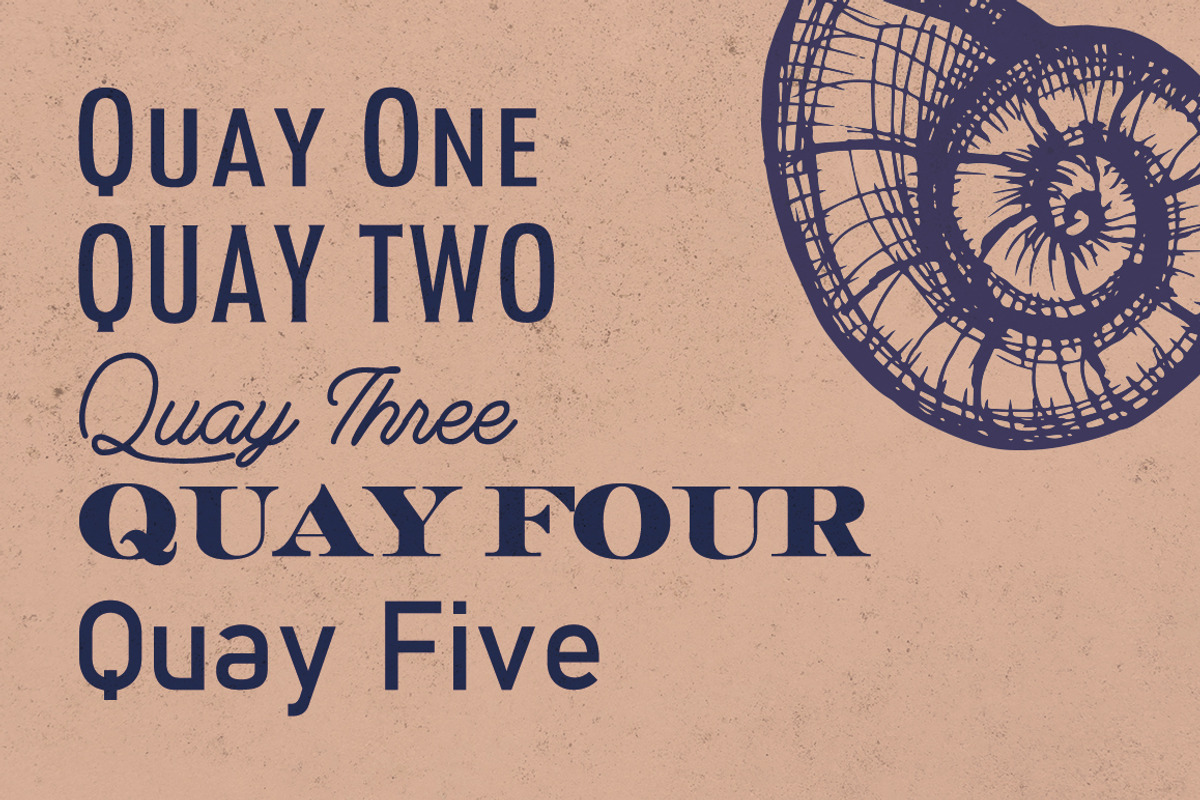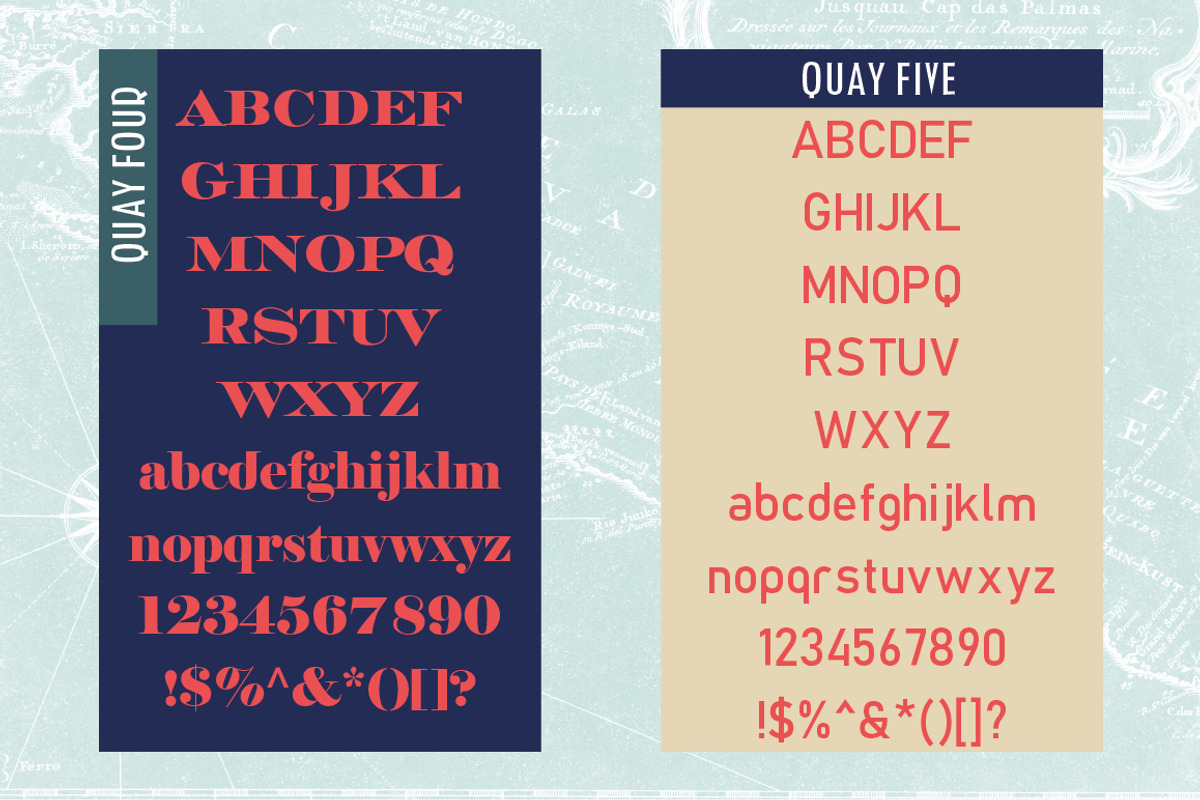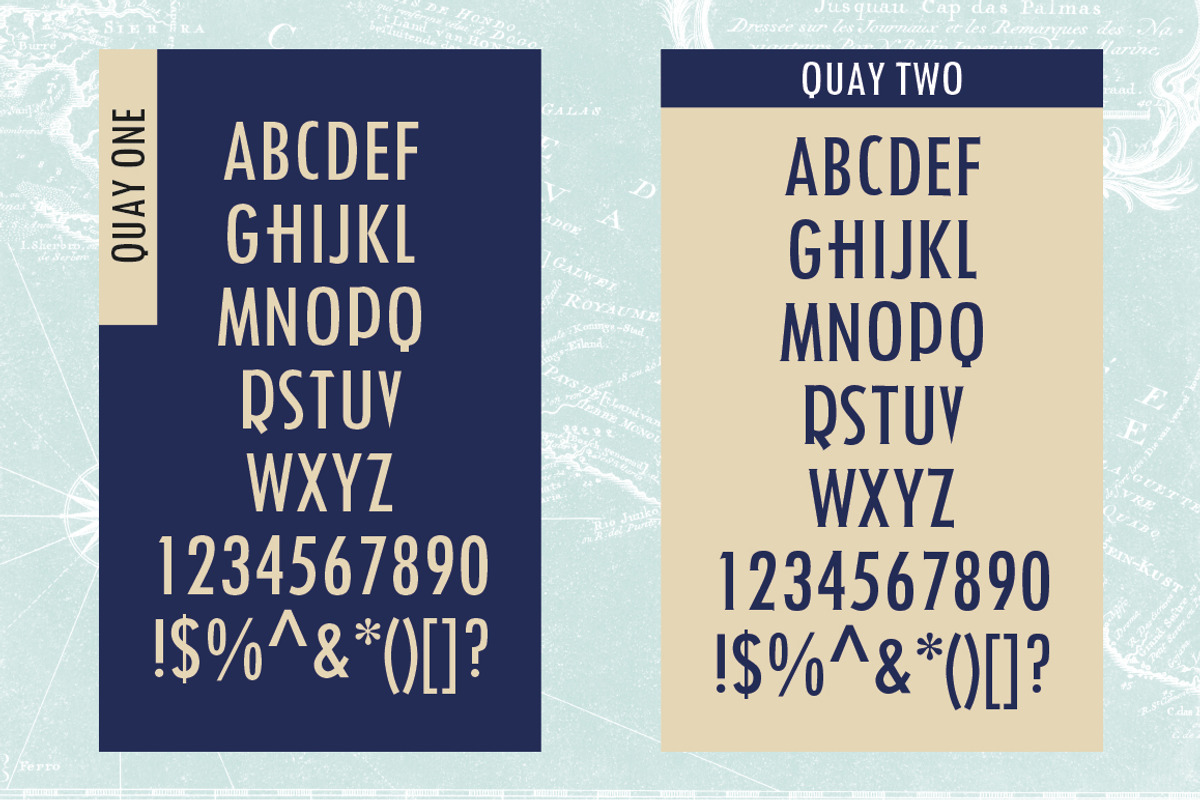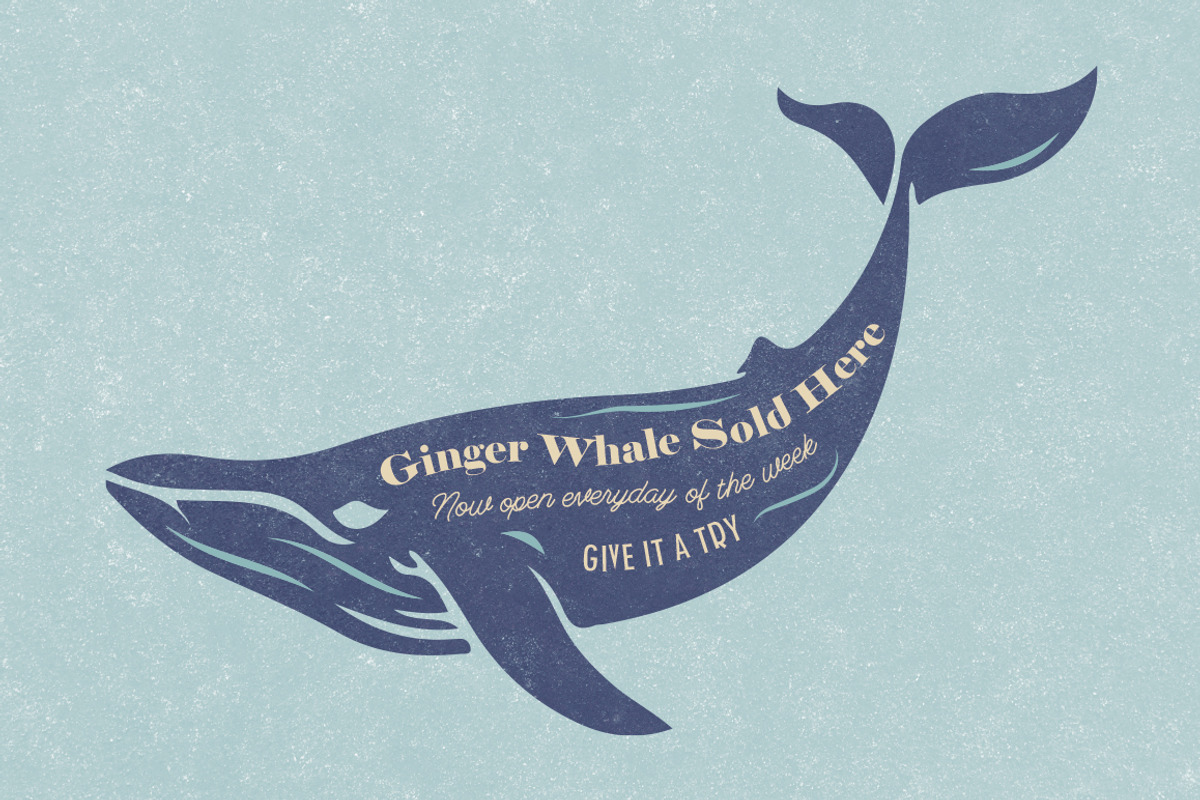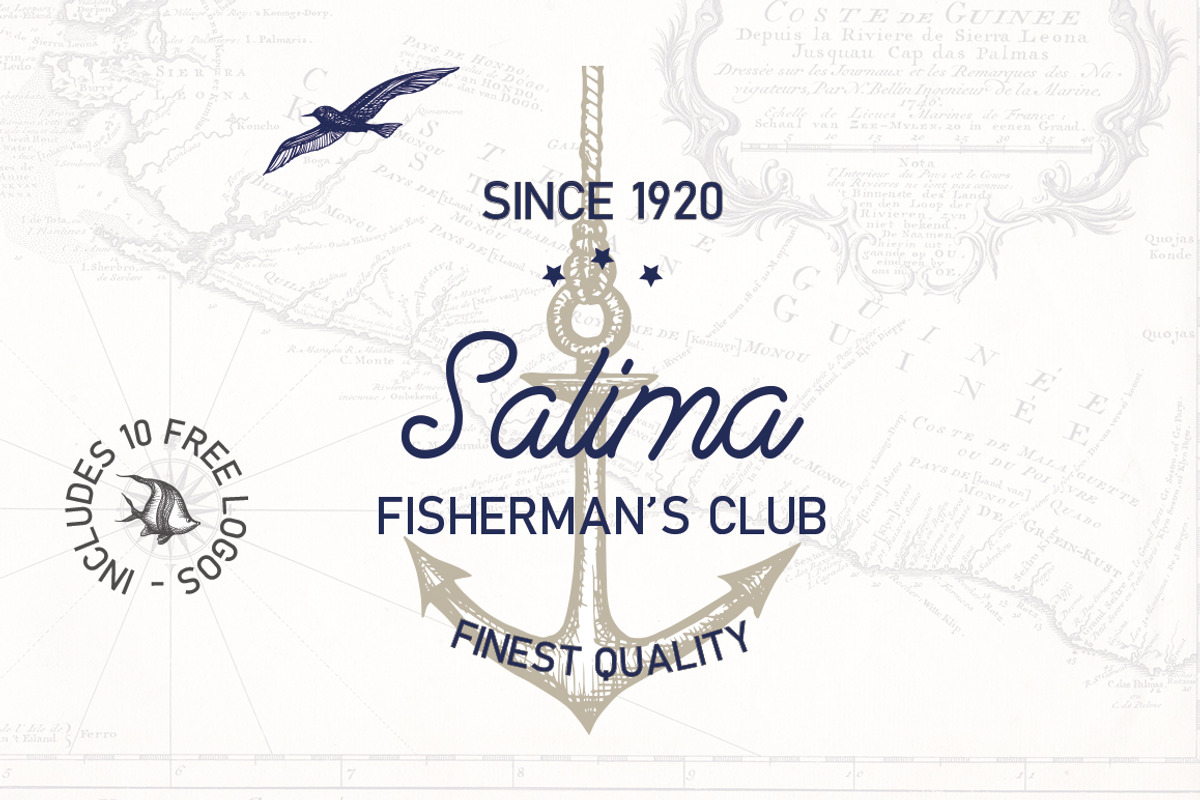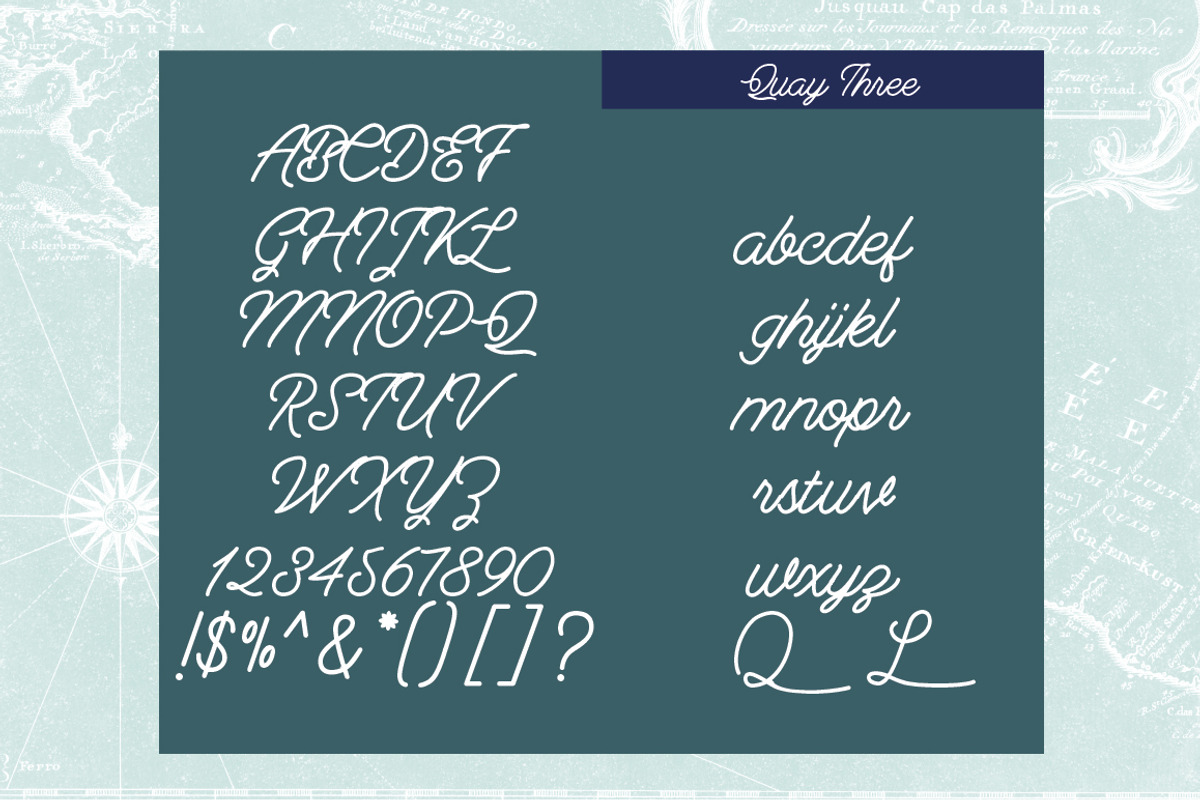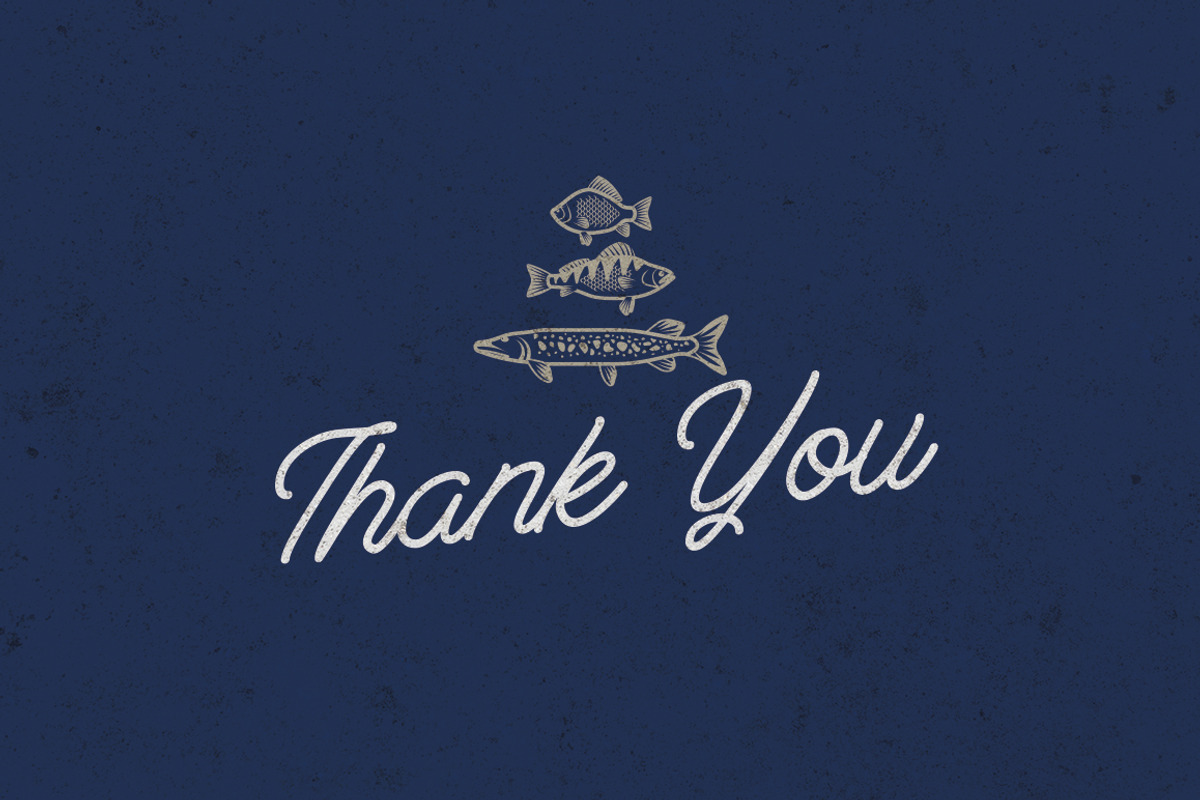
Quay Font Bundle & Bonus Logos
Quay Font Bundle is inspired by the sea, sailors and sand. There are five fonts included, all perfect to get your creative switched on. Each one of the Quay fonts works with the other; and is suitable for branding, t-shirt design, print, business cards, logo, poster, photography, quotes etc. I've also included a great bonus to get you started with creating your own logos.